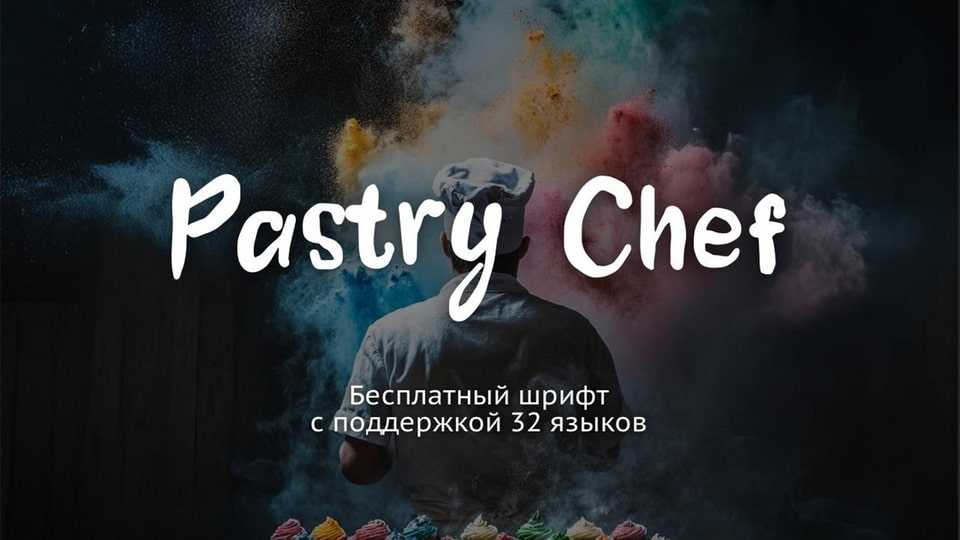
Download Pastry Chef font, a cozy and charming handwritten typeface maintaining a warm, personal touch with its natural letterforms and smooth curves.